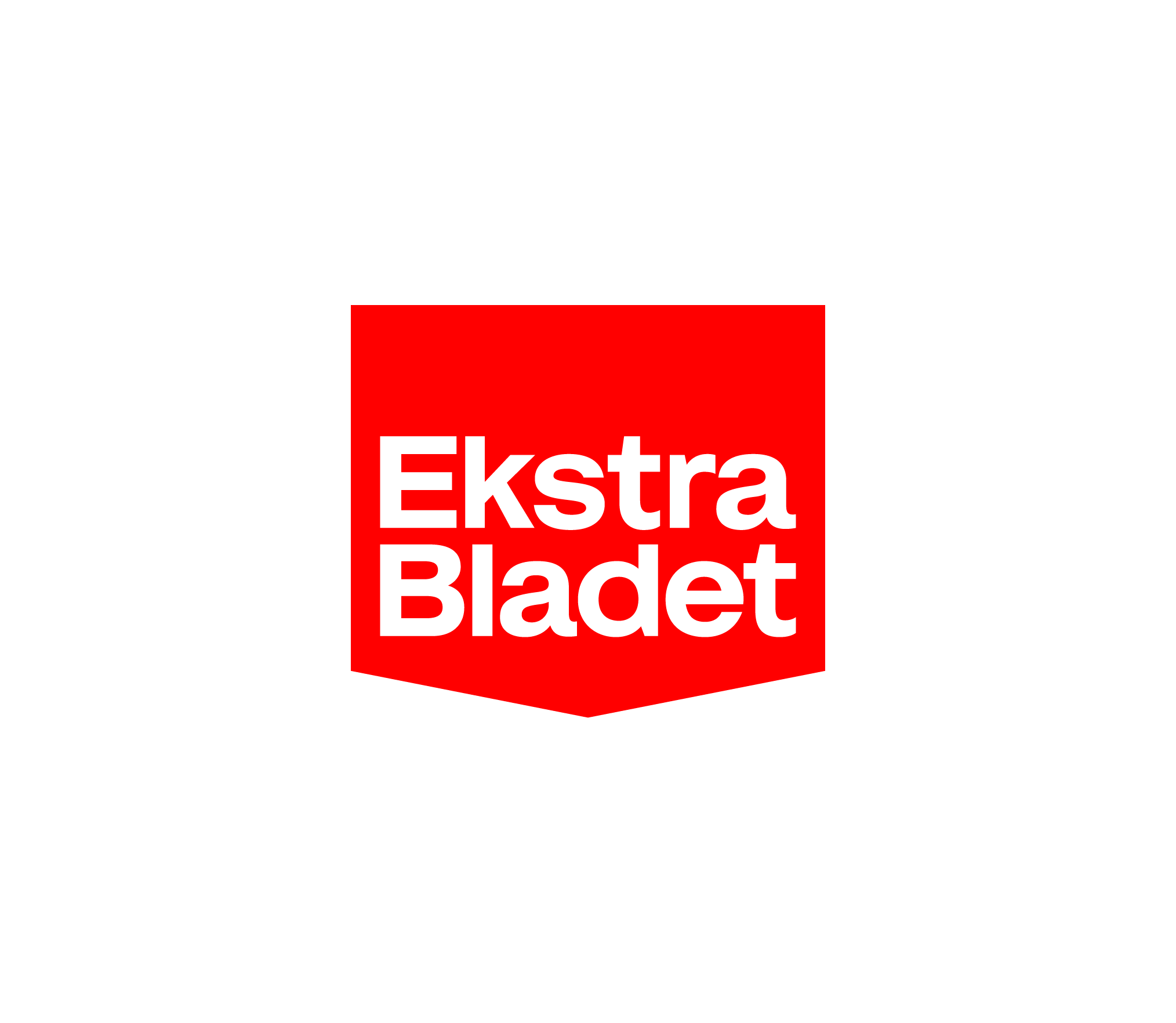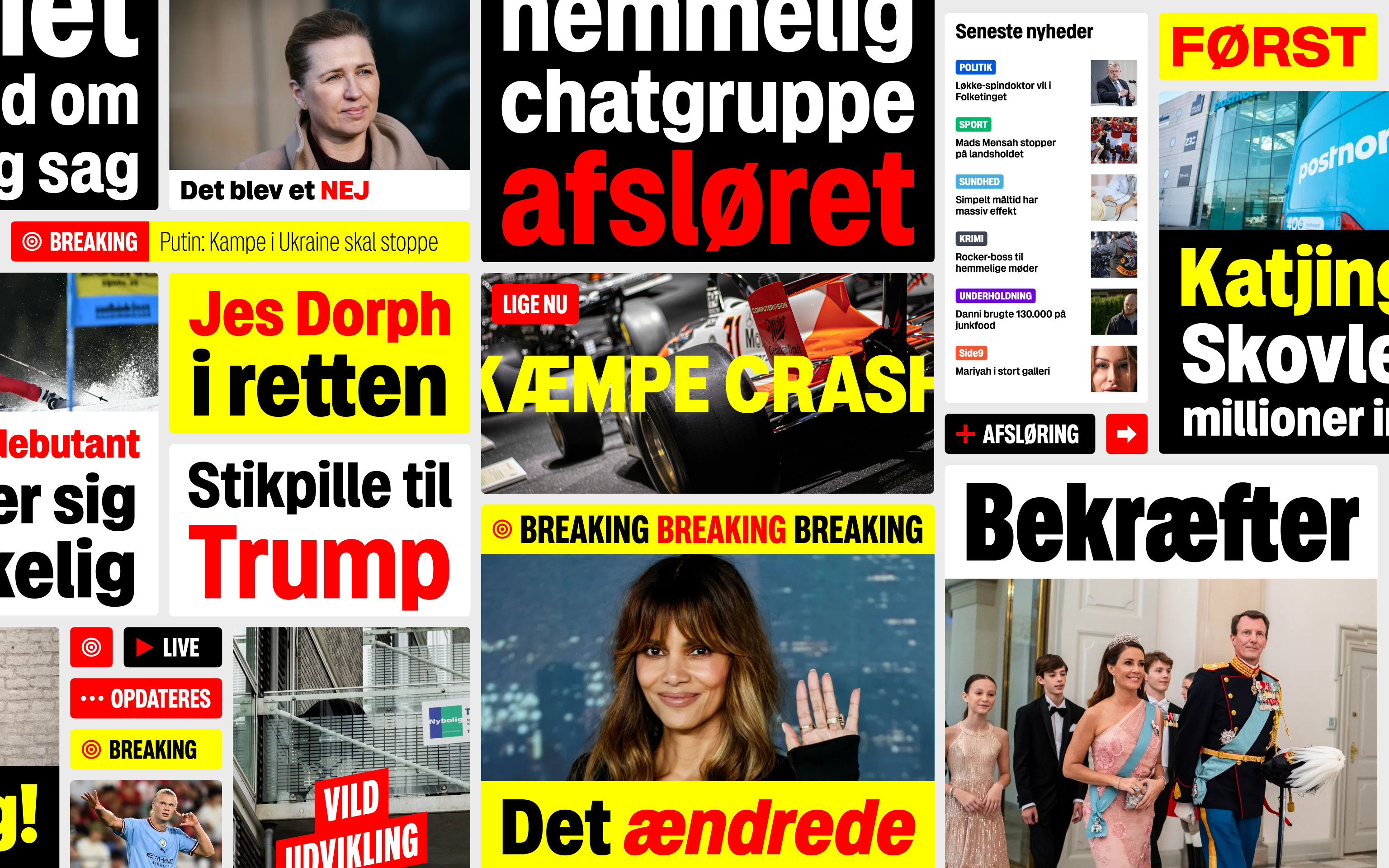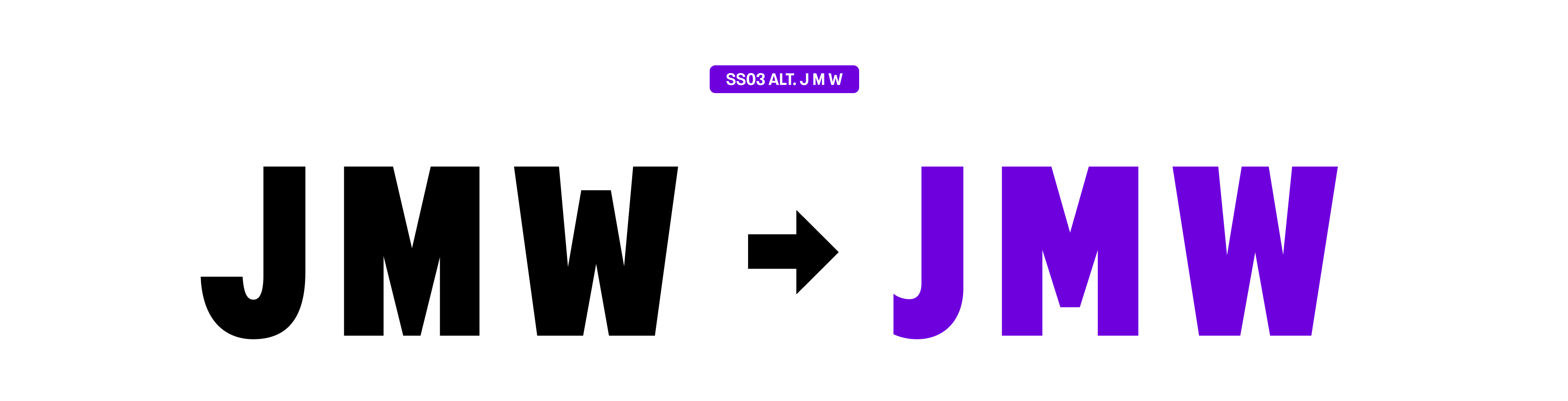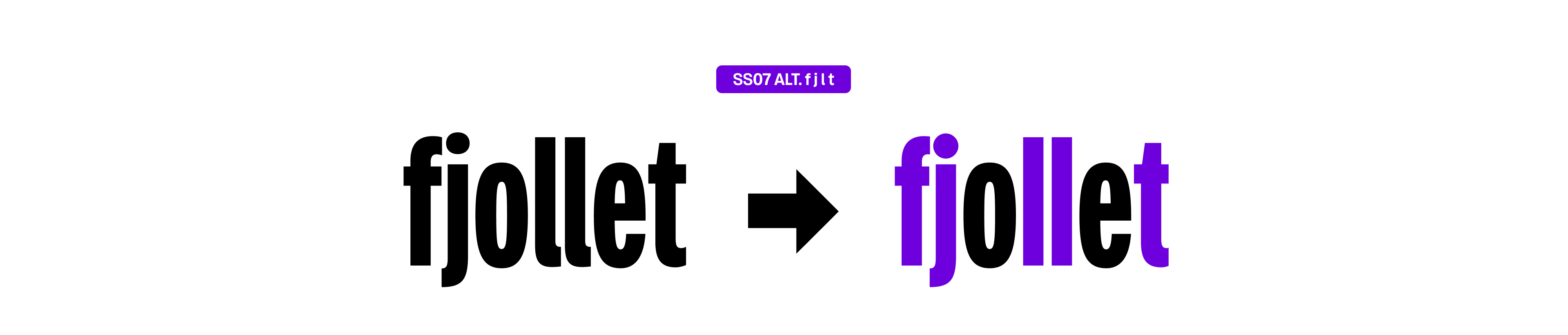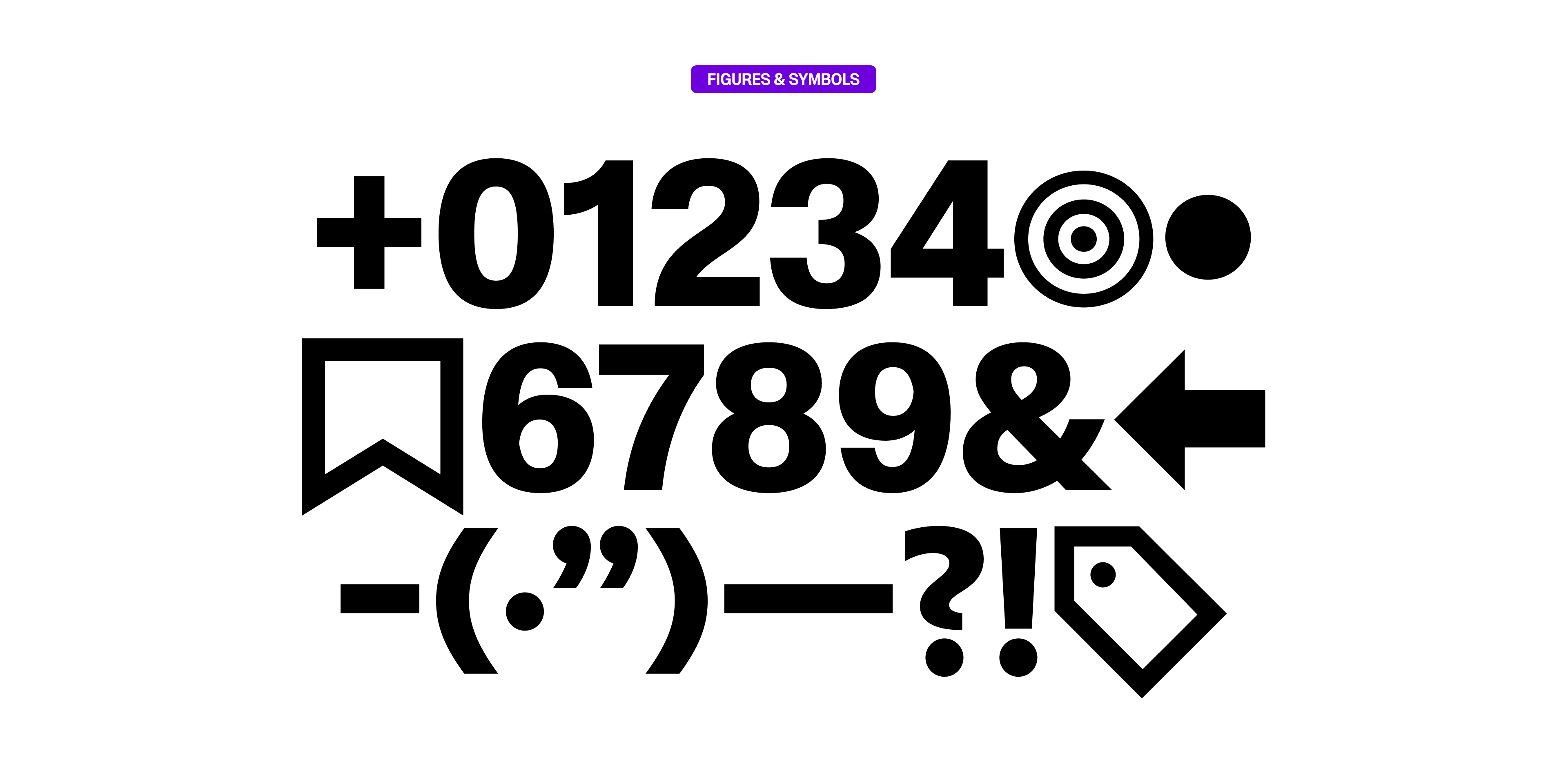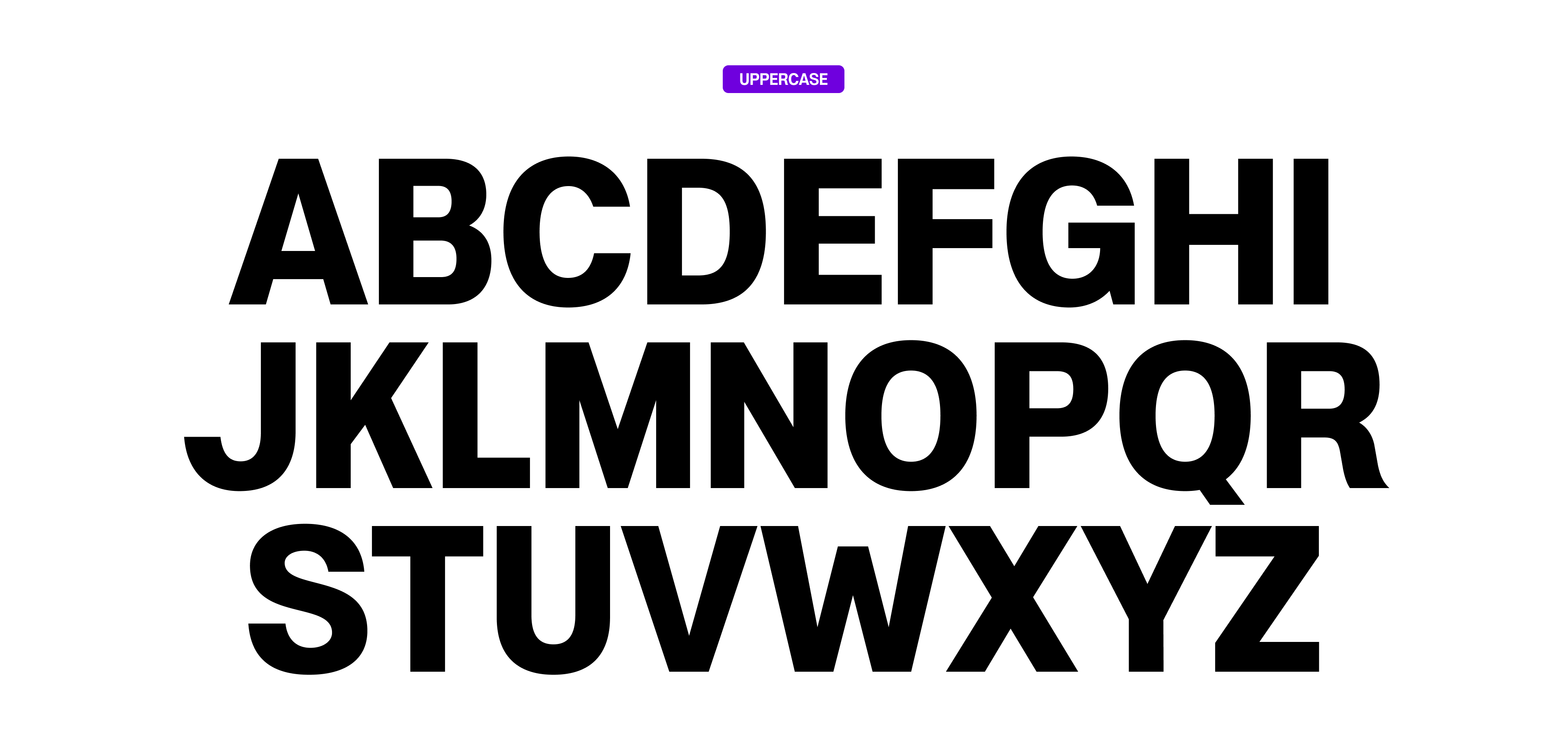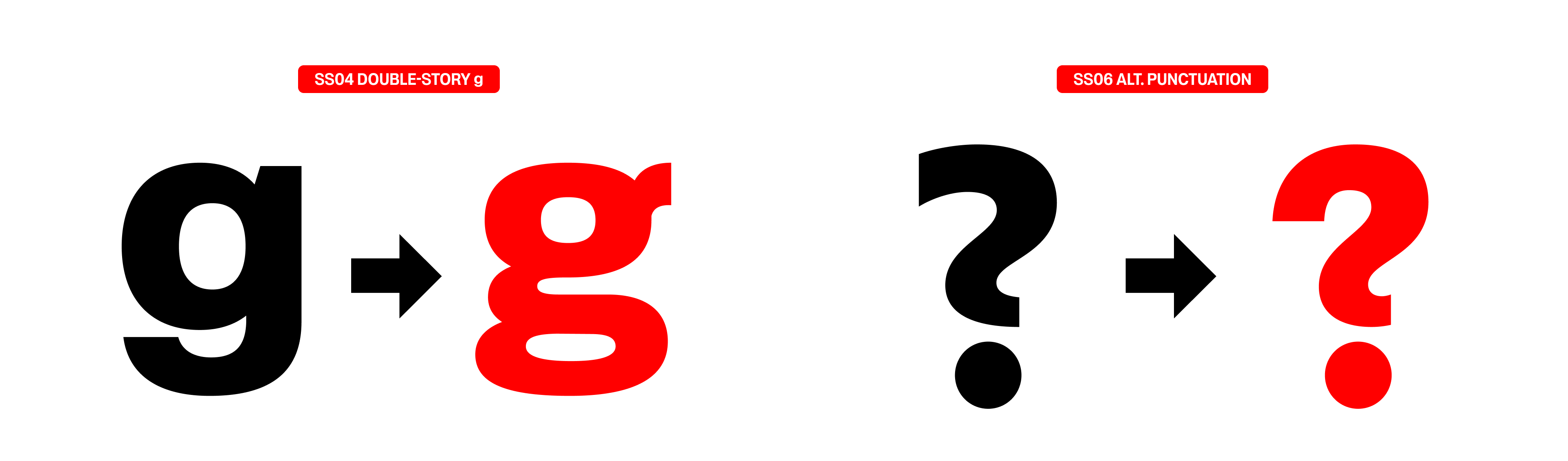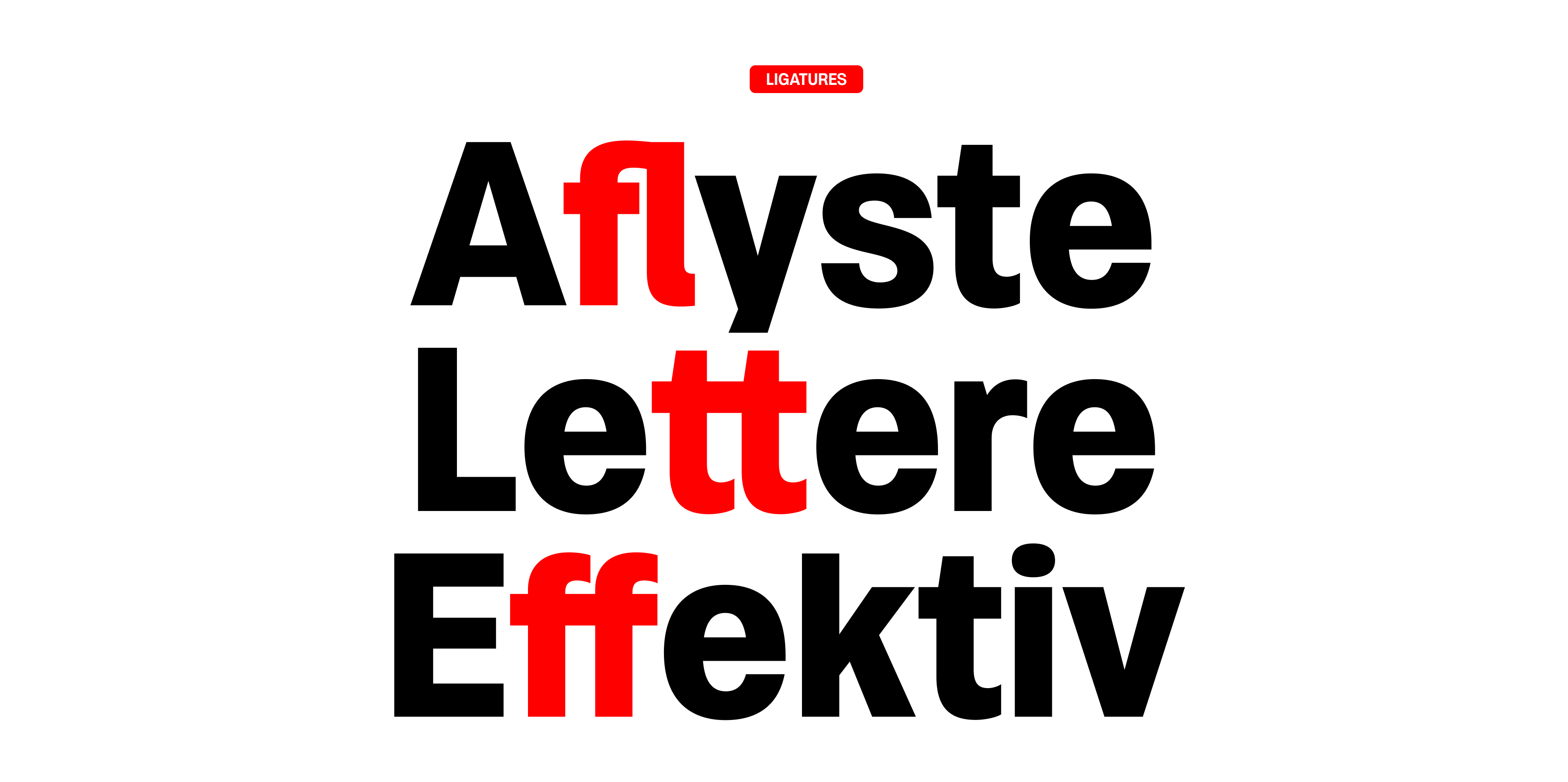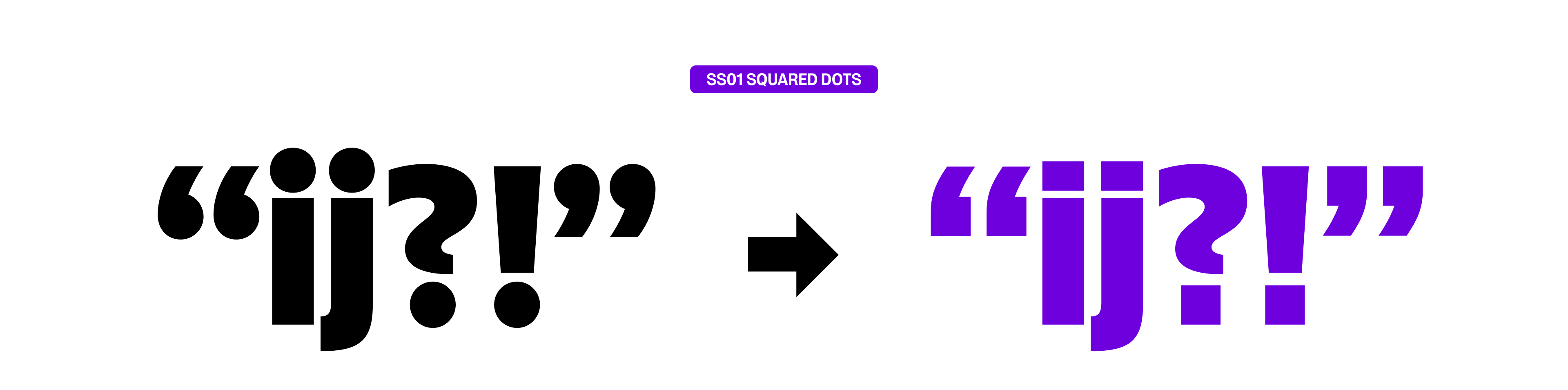
Breaking is the new custom typeface designed for Ekstra Bladet, one of largest and most widely read Danish tabloids. Built for both visual impact and versatility, the family spans six widths, from Extra Condensed to Expanded, with nine weights from Thin to Black (including variable support!) that allows it to compress or expand to fit any typographic layout. This makes Breaking ideal for the typography-heavy tabloid, whether for bold, expressive headlines or for dense article body text.
Breaking is a contemporary interpretation of modernism’s neo-grotesque sans serif typefaces. Staying true to its ancestors in its original shape, but packed with OpenType features for bespoke expressions, including ligatures, case-sensitive forms, tabular and old-style figures, and stylistic alternates. Additionally, Breaking includes text-optimized styles with extended ascenders, descenders, and punctuation for improved legibility.